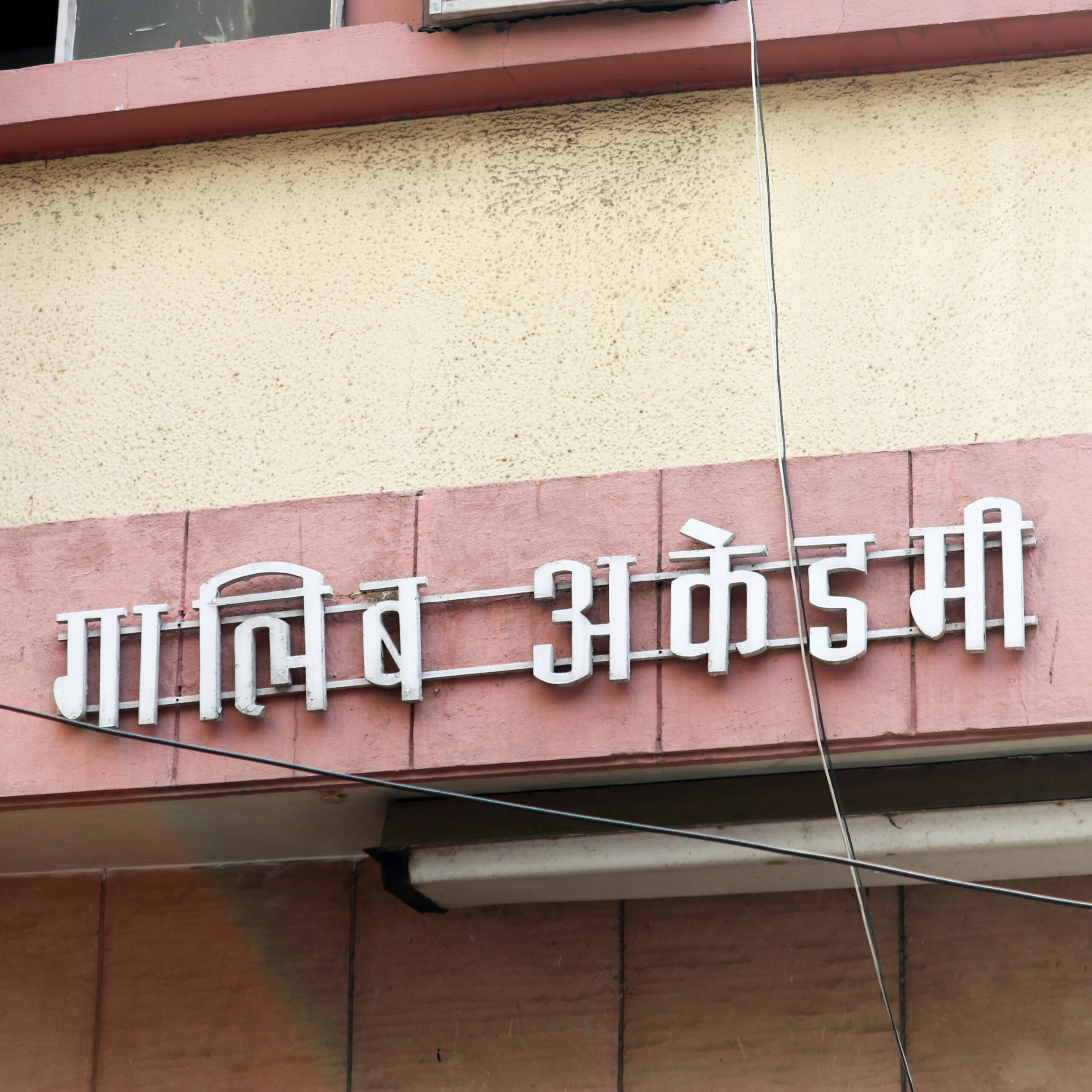
Ghalib Academy
Broken Headline
Cultural Institute
Mumbai
Geometric
Broken Headline
Small Vowel Marks
Squarish
Counterless
Geometric
Accented letters
Wide